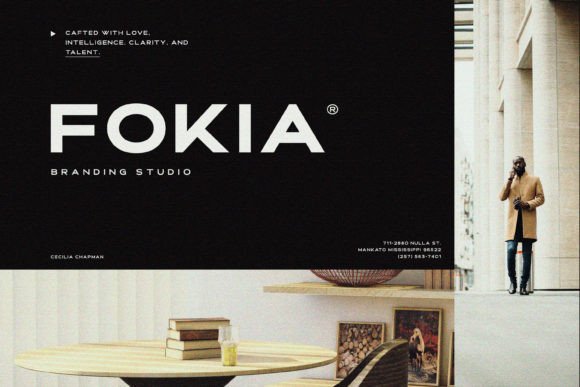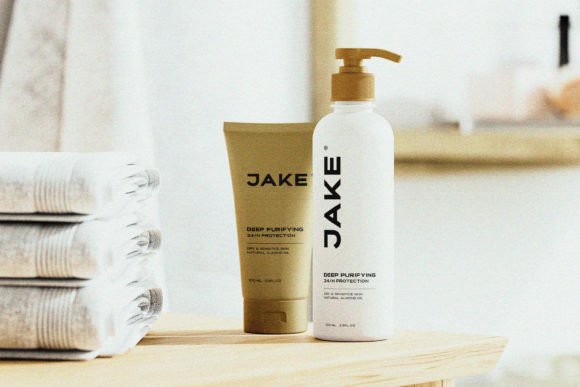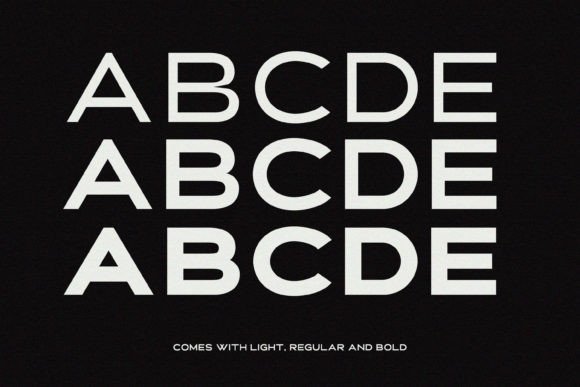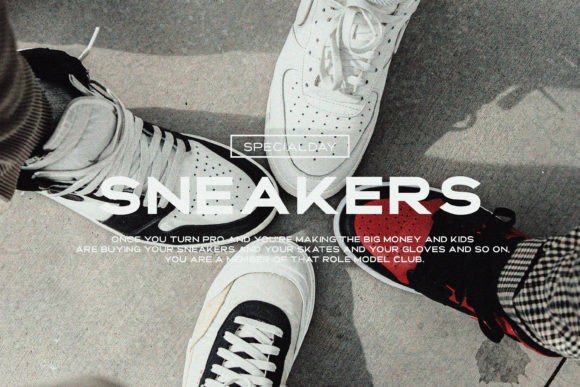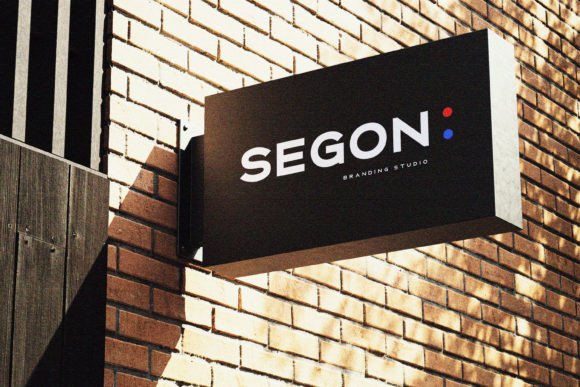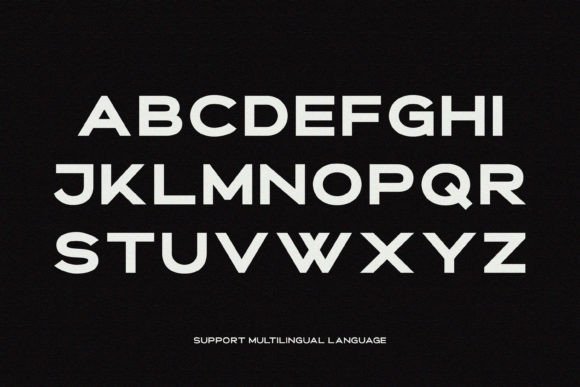
Introduction to Kento Font
Kento is a lovely sans-serif font with a classic touch, slightly stretched to the sides.
The font is simple and luxurious, so it leaves a deep memory impression when used on a brand Simple and powerful.